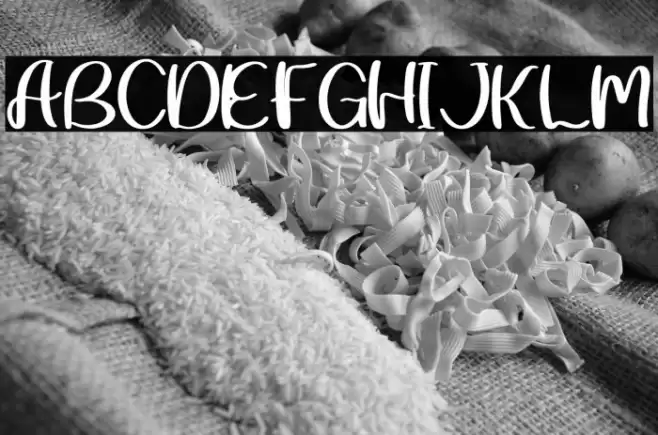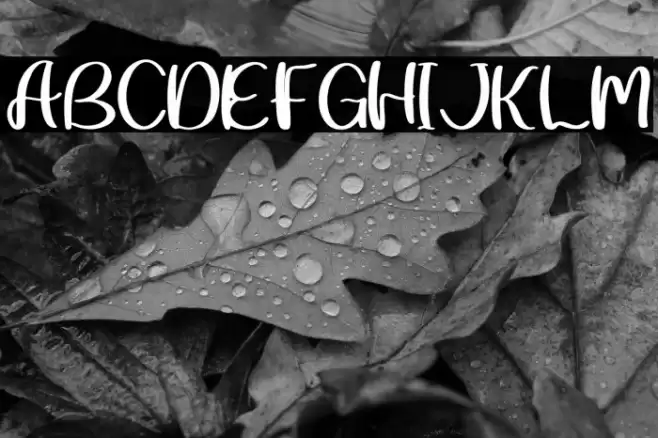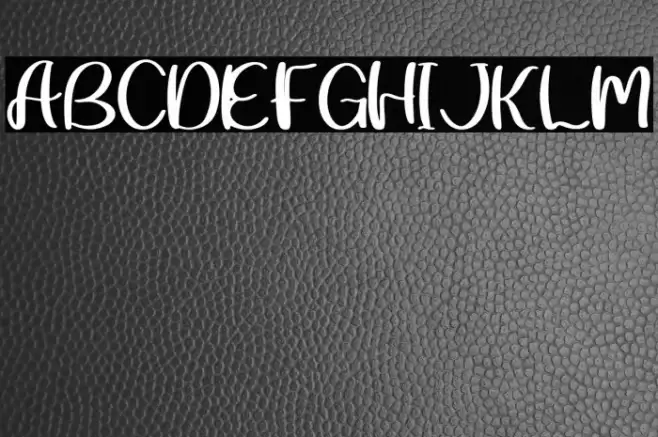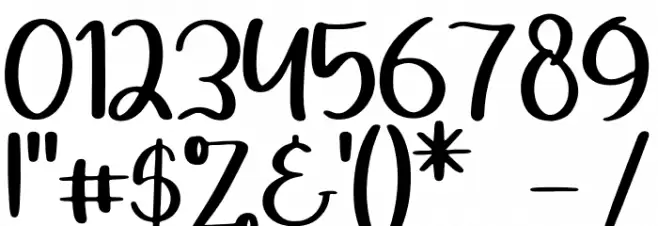
Summer Lovely Font
Summer Lovely Description
This font features a playful and flowing script style, characterized by its smooth, rounded edges and whimsical curves. The uppercase and lowercase letters maintain a consistent flow, creating a sense of movement and fluidity. The numbers and special characters are designed to complement the letters, with a similar playful and artistic flair. The overall appearance is casual yet elegant, making it suitable for a variety of creative projects. The font's unique style is perfect for adding a personal touch to any design.
A playful and flowing script font with smooth, rounded edges and whimsical curves from Uncategorized fonts.
- Proposed Projects: Ideal for wedding invitations, greeting cards, branding, and social media graphics.
- Use Case: Logos, Headlines, Invitations